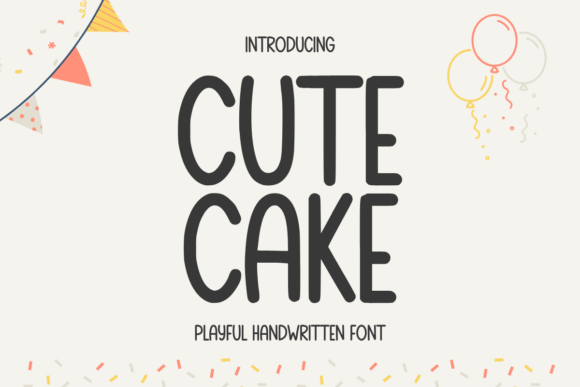
Celebrating the Joy of Creativity with Cute Cake Font
Have you ever stumbled upon a font that makes you feel like a kid in a candy store? For me, that moment came when I discovered Cute Cake Font – a delightful, handwritten font that’s as charming as it is versatile. Its organic design is the perfect blend of creativity and authenticity, making it an instant favorite among designers.
Cute Cake Font is more than just a font – it’s a tool that can elevate your projects from ordinary to extraordinary. Whether you’re planning a wedding, creating a daily journal, or designing a stationery set, this font is sure to bring a touch of whimsy and personality to your work. And with its wide range of applications, from planners to kdp templates, Cute Cake Font is an invaluable asset for any designer looking to add a dash of creativity to their projects.
Cute Cake Font Key Features
• Unique Characteristics: The font features playful, rounded shapes and whimsical flourishes, making it perfect for creating eye-catching and adorable designs.
• Font Style: Available in Regular, Italic, Bold, and Bold Italic styles, offering flexibility and versatility for various design applications.
• Scalability: Designed to be highly scalable, ensuring that the font remains clear and legible even at large sizes or when used in small spaces.
Cute Cake Font Review
I recently had the chance to work with the Cute Cake Font, and I have to say, it’s a delightful addition to any bakery or dessert-themed design project.
• The font’s playful, whimsical style is perfect for capturing the charm of a sweet treat.
• The letterforms are well-crafted, with smooth curves and a consistent weight.
• The font is highly legible, even at smaller sizes.
• The font supports a wide range of languages, making it a great choice for international projects.
• The font may not be suitable for more formal or professional designs, as its playful nature may come across as too casual.
• The font lacks a bold weight, which may limit its use in headings or titles.
• The font may not be ideal for projects that require a more modern or sleek aesthetic.
Overall, I think the Cute Cake Font is a great choice for designers who need a fun, playful font for bakery or dessert-themed projects. While it may have some limitations, its charming style and high legibility make it a worthwhile addition to any design project.
Tips for Getting the Most Out of Cute Cake Font
Use Cute Cake Font to add a playful touch to your designs, such as in children’s party invitations, food labels, or social media graphics.
Combine Cute Cake Font with other decorative elements, such as icons and illustrations, to create visually appealing designs.
Cute Cake Font is perfect for:
Children’s party invitations and decorations
Food labels and packaging
Social media graphics and promotions
Wedding and baby shower invitations